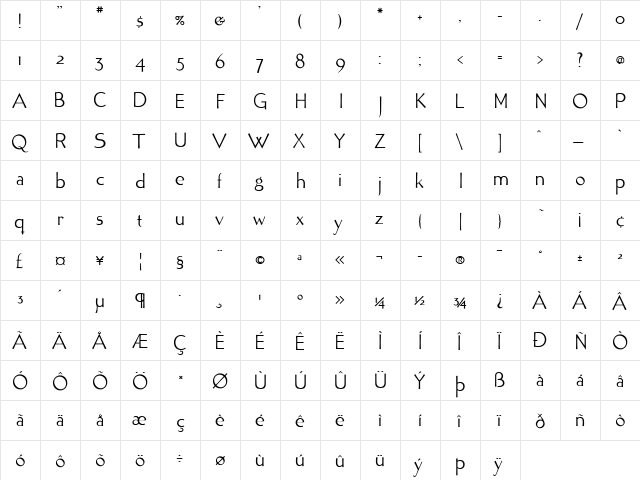
Tonic Book
Design Context for Tonic Typeface
Tonic takes a measured approach to typography — its balanced proportions and neutral character make it a reliable workhorse for both digital and print work.
Pro Tip: Pair Tonic with a font of contrasting weight or personality to build a more expressive typographic hierarchy.